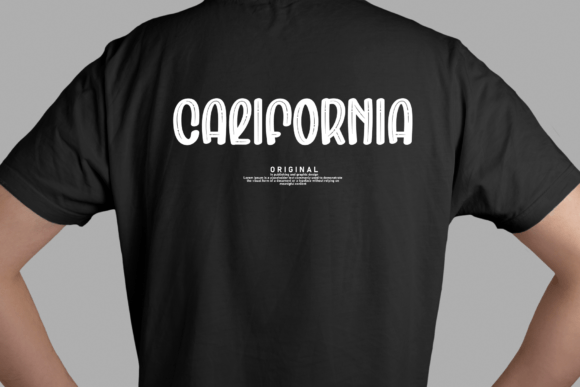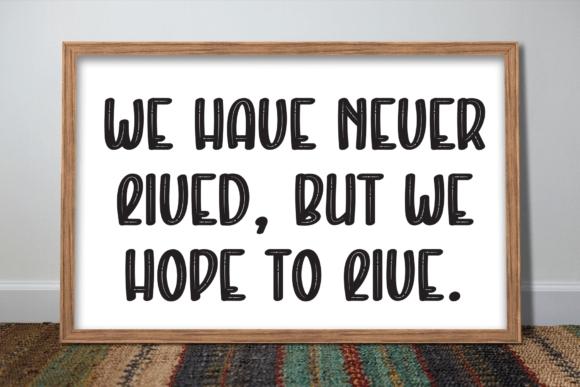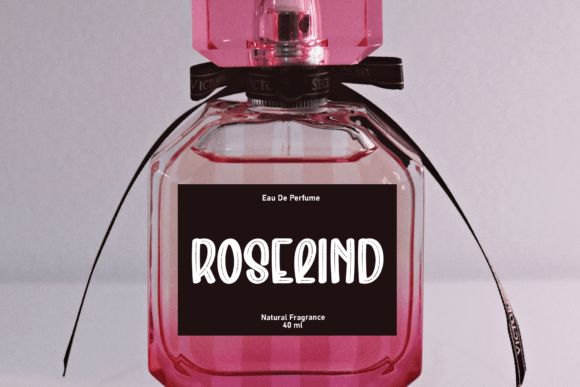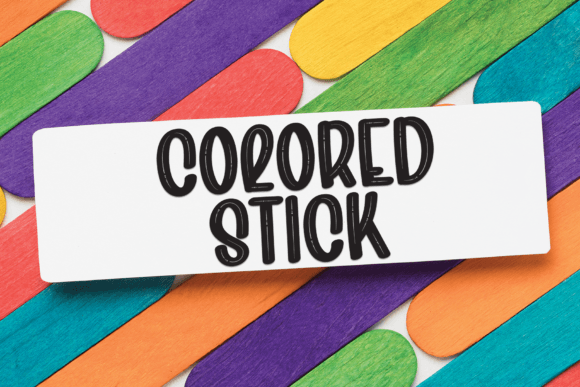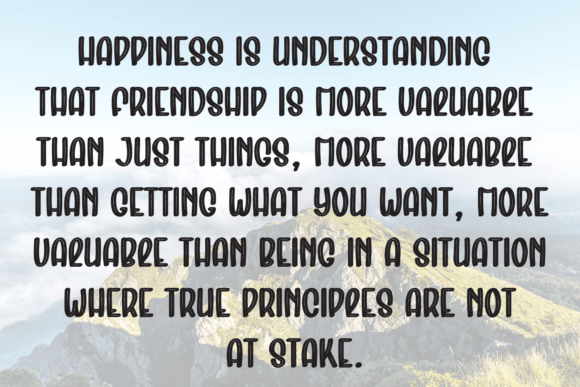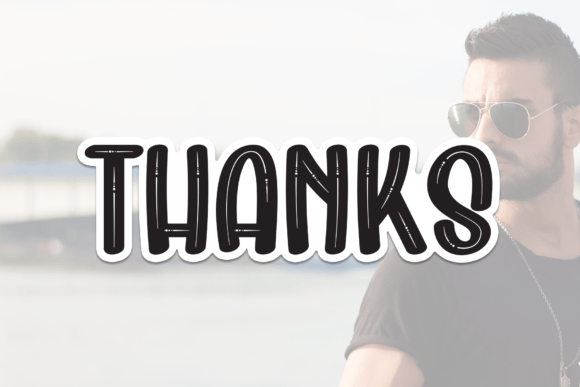
Introducing Good Looking Font: Add a Joyful Touch to Your Designs
Are you tired of using the same old fonts in your designs? Do you want to add a playful and quirky touch to your creative projects? Look no further than Good Looking Font, a beautiful handwritten font that’s sure to bring a smile to your face. In this article, we’ll take a closer look at Good Looking Font, its features, and how you can use it to take your designs to the next level.
What is Good Looking Font?
Good Looking Font is a cute and quirky handwritten font that’s perfect for adding a personal touch to your designs. With its playful and joyful vibe, this font is ideal for designers, crafters, and anyone looking to add some whimsy to their creative projects. Whether you’re working on a logo, brochure, or social media graphics, Good Looking Font is sure to make your designs stand out.
Key Features of Good Looking Font
- Handwritten style: Good Looking Font has a beautiful, handwritten style that’s perfect for adding a personal touch to your designs.
- Cute and quirky: This font has a playful and quirky vibe that’s sure to bring a smile to your face.
- Display font: Good Looking Font is a display font, making it perfect for headlines, titles, and other attention-grabbing elements.
- Easy to read: Despite its playful style, Good Looking Font is easy to read, making it perfect for use in a variety of design projects.
How to Use Good Looking Font in Your Designs
Good Looking Font is a versatile font that can be used in a variety of design projects, including:
- Logos and branding: Add a playful touch to your logo and branding with Good Looking Font.
- Brochures and flyers: Use Good Looking Font to add some personality to your brochures and flyers.
- Social media graphics: Add a touch of whimsy to your social media graphics with Good Looking Font.
- Invitations and cards: Use Good Looking Font to create playful and eye-catching invitations and cards.
Tips for Getting the Most Out of Good Looking Font
Here are a few tips for getting the most out of Good Looking Font:
- Use it sparingly: Good Looking Font is a display font, so use it sparingly to add emphasis to your designs.
- Experiment with colors: Good Looking Font looks great in a variety of colors, so don’t be afraid to experiment and find the perfect hue for your design.
- Pair it with other fonts: Good Looking Font pairs well with other fonts, so try pairing it with a clean sans-serif font for a contrasting look.
Good Looking Font is a beautiful and playful handwritten font that’s perfect for adding a joyful touch to your designs. With its cute and quirky vibe, this font is sure to make your designs stand out. Whether you’re a designer, crafter, or simply someone looking to add some personality to your creative projects, Good Looking Font is a great choice. So why not give it a try and see how it can elevate your designs?
- Is Good Looking Font suitable for body text?: Good Looking Font is a display font, so it’s best suited for headlines and titles rather than body text.